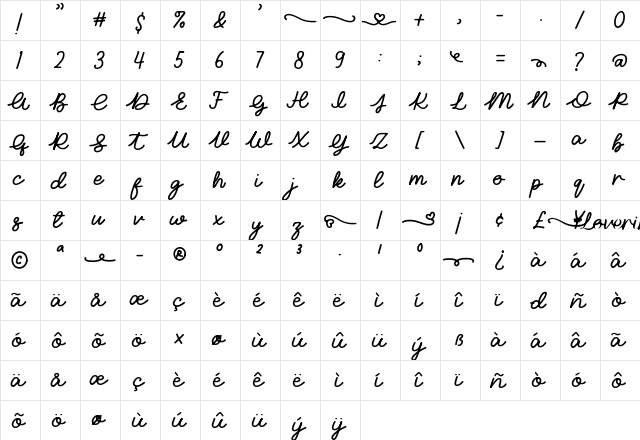
Loverine Regular
| Designer | Agam Rahmadan |
Design Context for Loverine Typeface
Loverine takes a measured approach to typography — its balanced proportions and neutral character make it a reliable workhorse for both digital and print work.